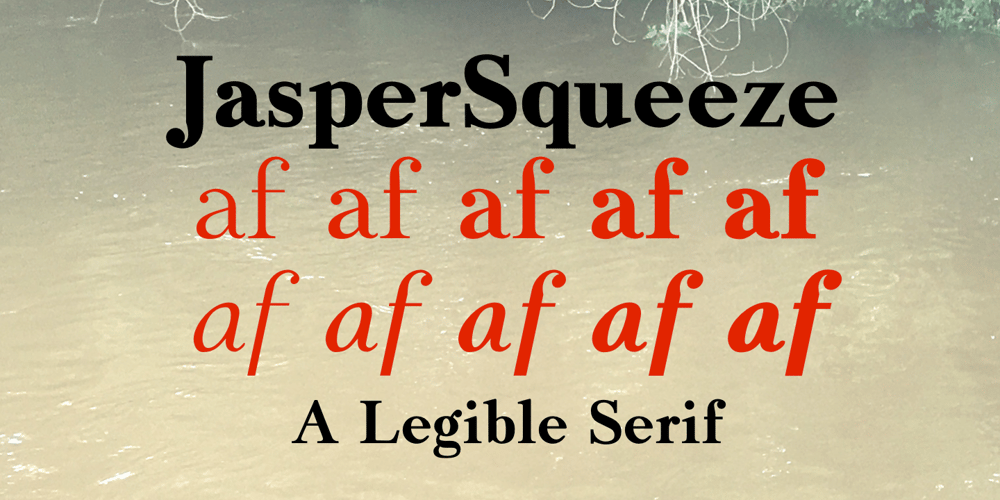
Jasper Squeeze
Jasper Squeeze font
Jasper Squeeze Font Family was designed by Robert Schenk and published by Ingrimayne Type. Jasper Squeeze contains 10 styles and family package options. JasperSqueeze was an attempt to do a decent text face. Blending it with XAabced resulted in JabcedHy, which seems to be superior to both parents.